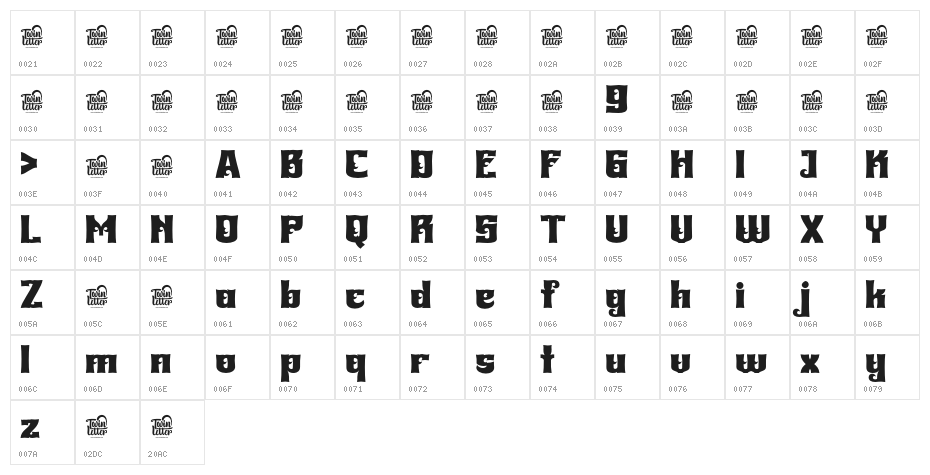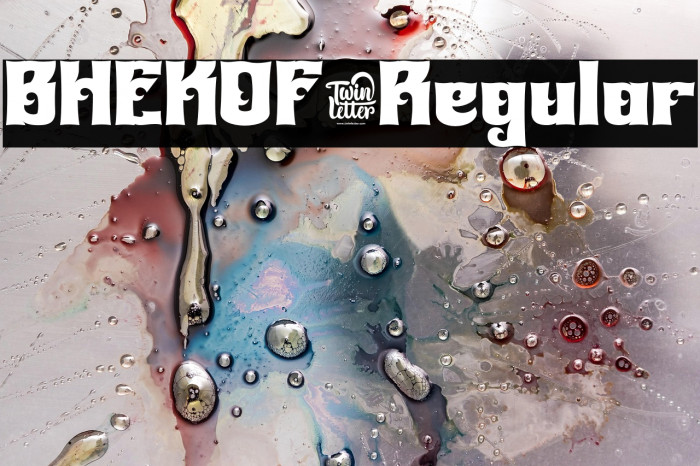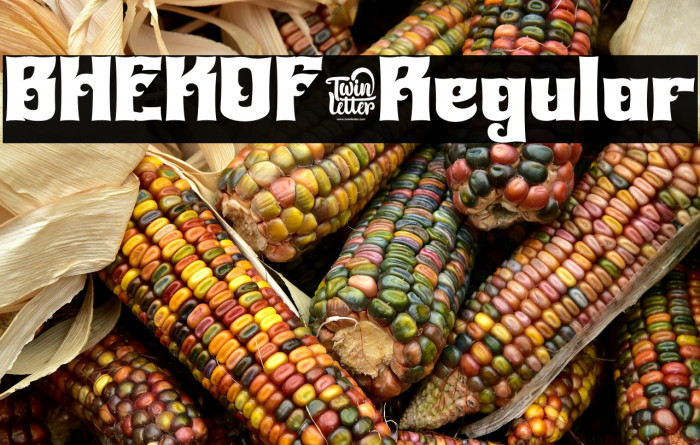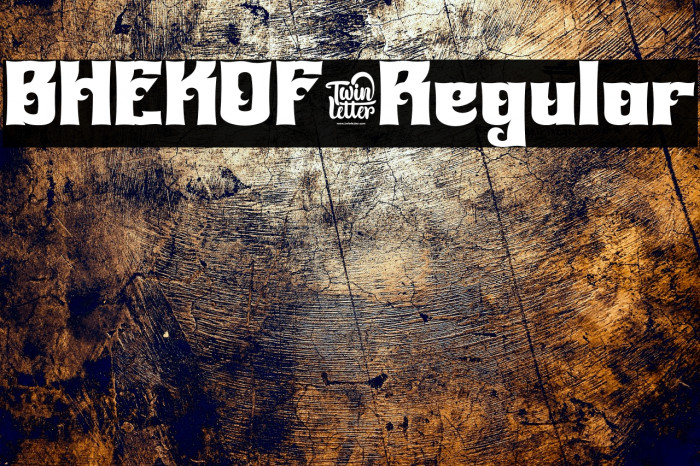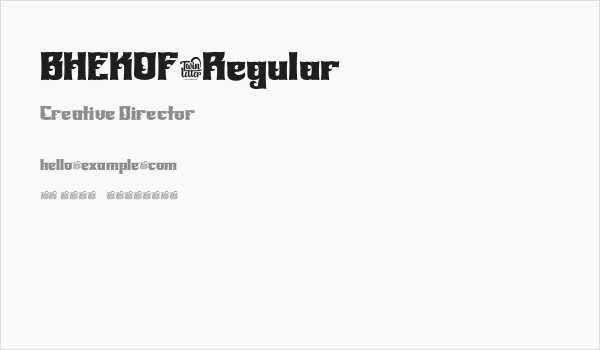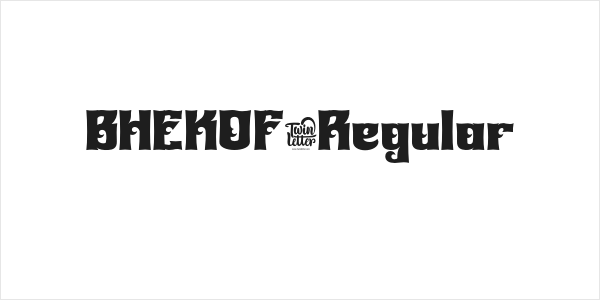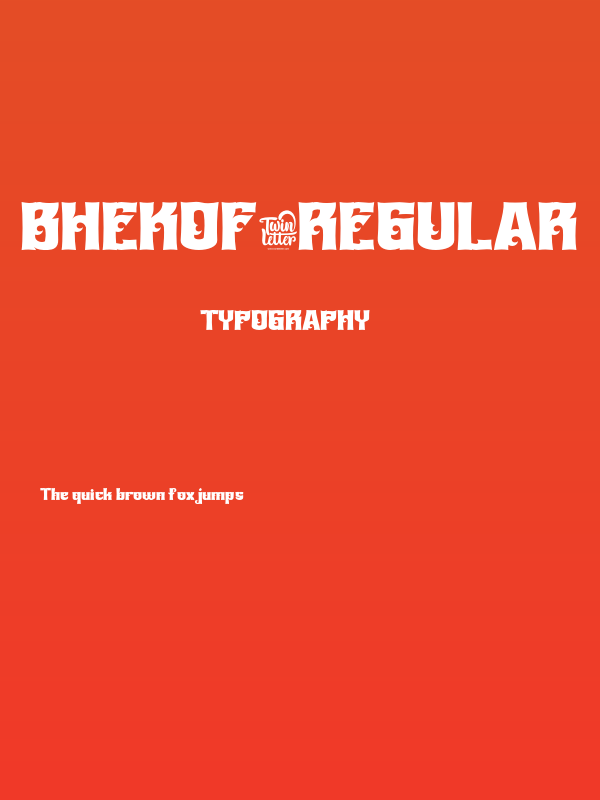
BHEKOF-Regular Font
This font features a bold and striking design with a distinctive decorative flair. Each character is crafted with unique embellishments that give it a playful yet edgy appearance. The uppercase letters are particularly bold, with sharp angles and creative cutouts that add a sense of movement and energy. The lowercase letters maintain a consistent style, offering a harmonious blend with the uppercase set. Numbers and special characters are equally bold, ensuring a cohesive look across all text elements. This font's artistic style makes it ideal for eye-catching designs.
| Use Case | Logos, Headlines, Posters |
| Proposed Projects | Ideal for posters, logos, branding, and any project requiring a bold, artistic touch. |